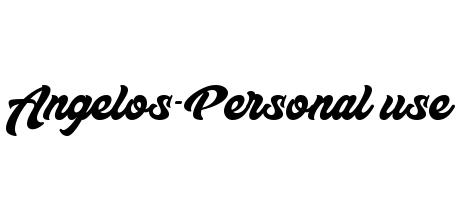
Angelos-Personal use
Angelos-Personal Use: A bold, expressive script font, brimming with vintage charm. Its flowing strokes and playful curves evoke a sense of carefree energy, perfect for adding a touch of retro flair to logos, titles, or handwritten-style designs. The slightly condensed letters maintain readability while ensuring impact.